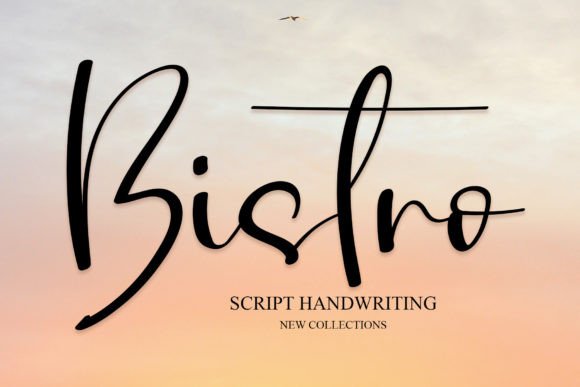
Embrace the Allure of Bistro Font: Where Elegance and Originality Intertwine
In the realm of typography, where letters dance and words take flight, there exists a font that captivates the senses and ignites the imagination. Allow us to introduce you to Bistro Font, a masterpiece crafted by the visionary artisans at Bintang Studio.
Bistro Font is a symphony of beauty and refinement, a handwritten font that exudes grace and sophistication. Its elegant curves and delicate flourishes evoke a sense of timeless charm, while its modern sensibility ensures that it remains relevant and captivating in the ever-evolving digital landscape.
Step into a world of creativity and limitless possibilities with Bistro Font. Whether you're a seasoned designer or just starting your artistic journey, this font will elevate your projects to new heights of elegance and originality.
Picture the allure of a wedding invitation adorned with Bistro Font's exquisite script. The swirling letters intertwine like vines around a trellis, creating an enchanting ambiance that sets the tone for a day filled with love and joy.
Envision the impact of a logo designed with Bistro Font's timeless appeal. The unique letterforms command attention, leaving an unforgettable impression on clients and customers alike.
Imagine the sophistication of stationery and branding materials that showcase Bistro Font's refined beauty. From business cards to letterheads, every touchpoint becomes an opportunity to communicate professionalism and distinction.
With Bistro Font, social media posts and marketing campaigns transform into captivating works of art. The font's inherent charm draws followers in, creating an emotional connection that drives engagement and builds a loyal audience.
Bistro Font's versatility extends beyond the digital realm. Its captivating presence enhances invitations, signage, and posters, adding a touch of elegance to any event or occasion.
The creative potential of Bistro Font is boundless, awaiting your vision to unlock its full splendor. Unleash your imagination and let the font's magic guide you to new horizons of artistic expression.
Bistro Font: Where beauty meets functionality, where inspiration takes flight, and where your creativity knows no bounds.